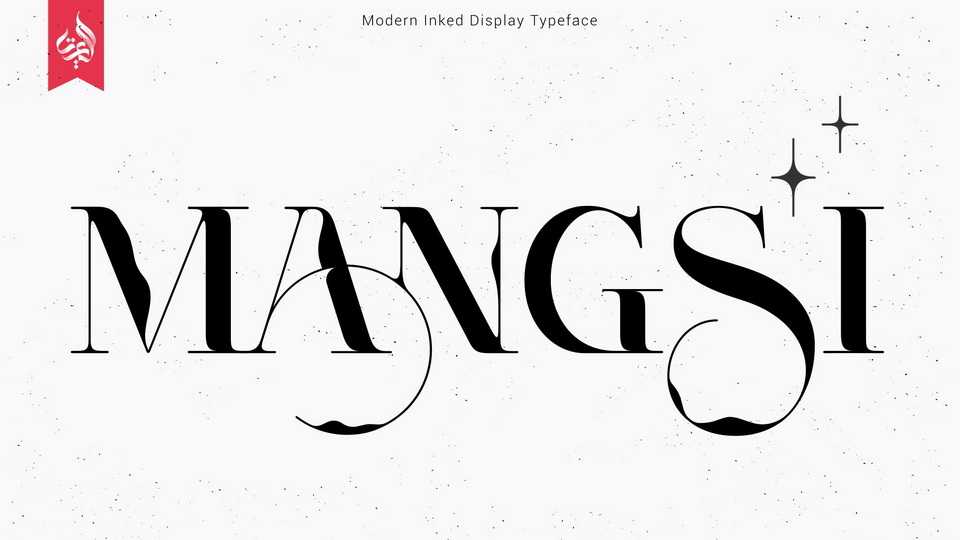
Download Mangsi font, a modern display typeface with an inked-like feel by combining clean modern serif strokes, brush strokes and the curved lines made by the ink tank.
Designer: Aluyeah Studio